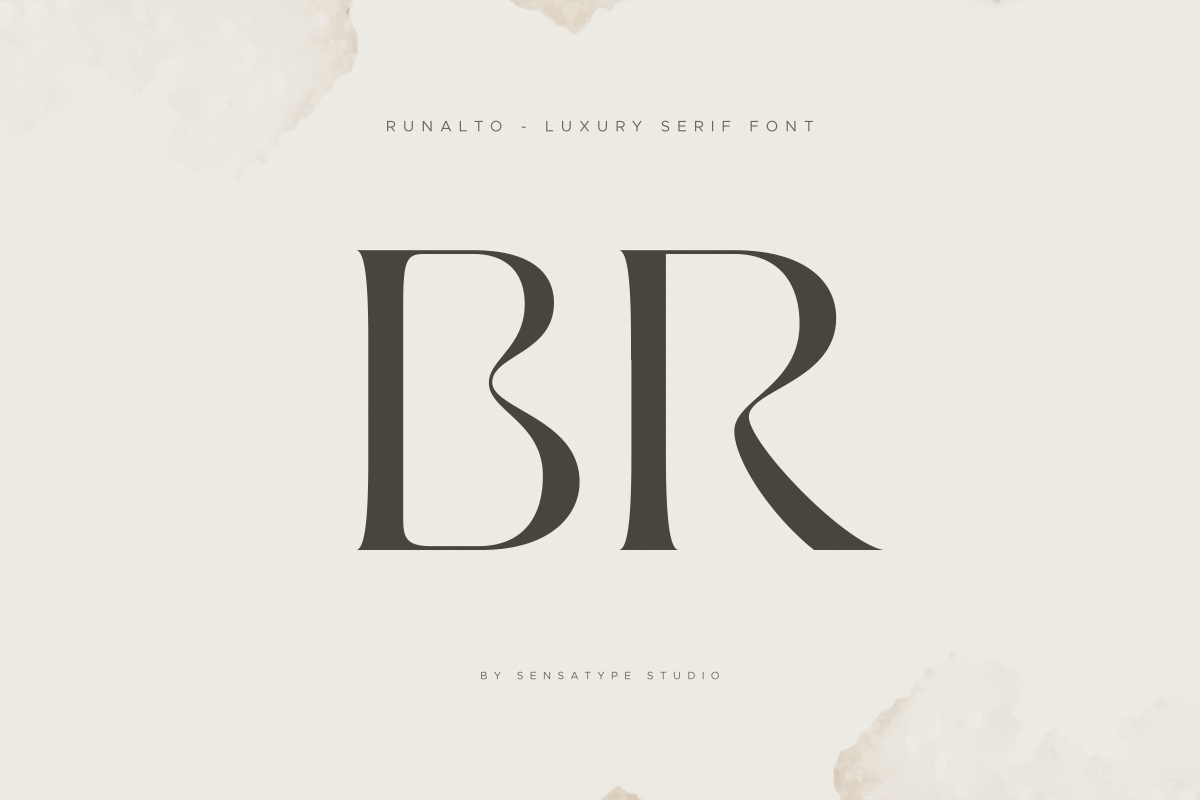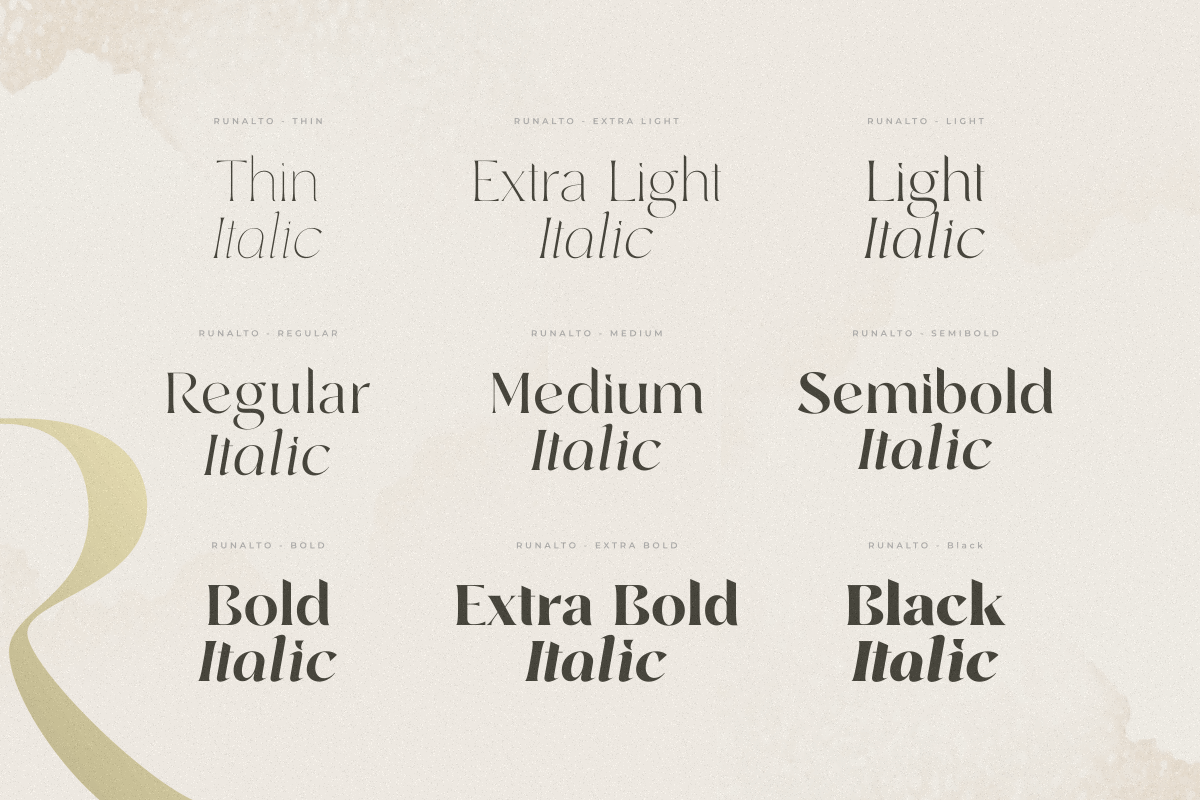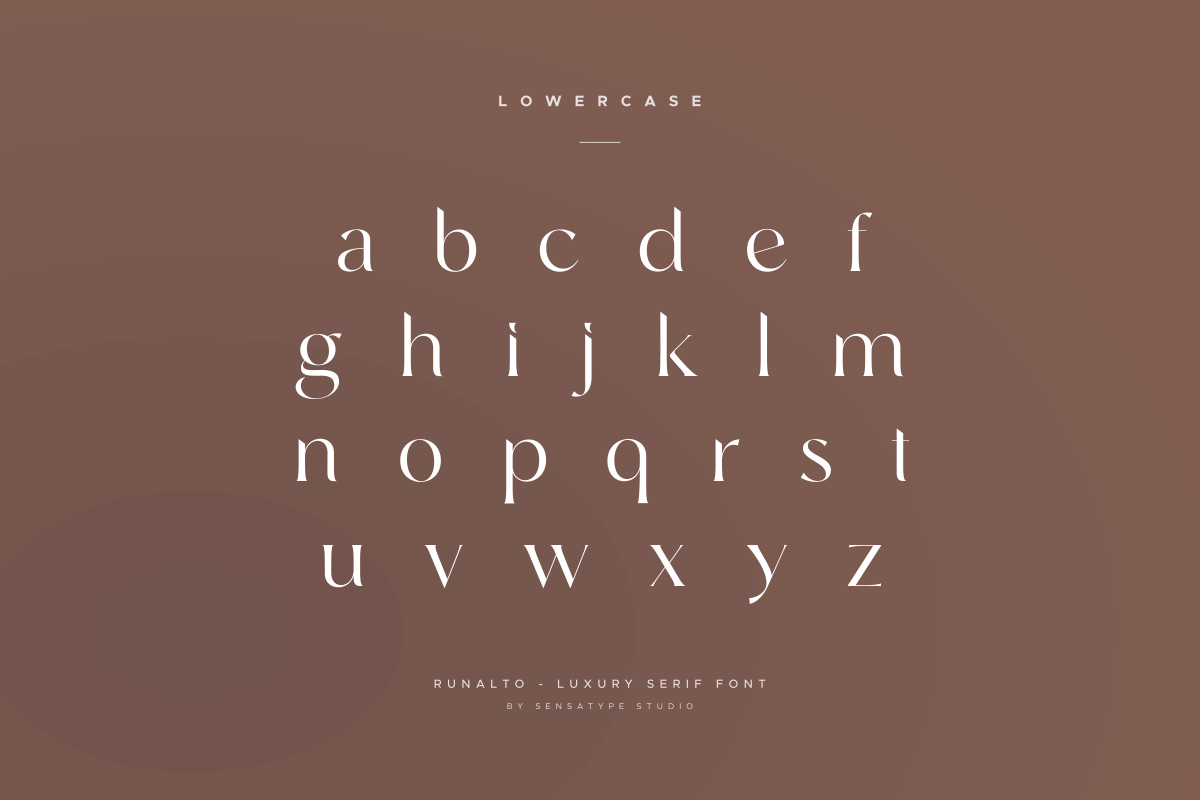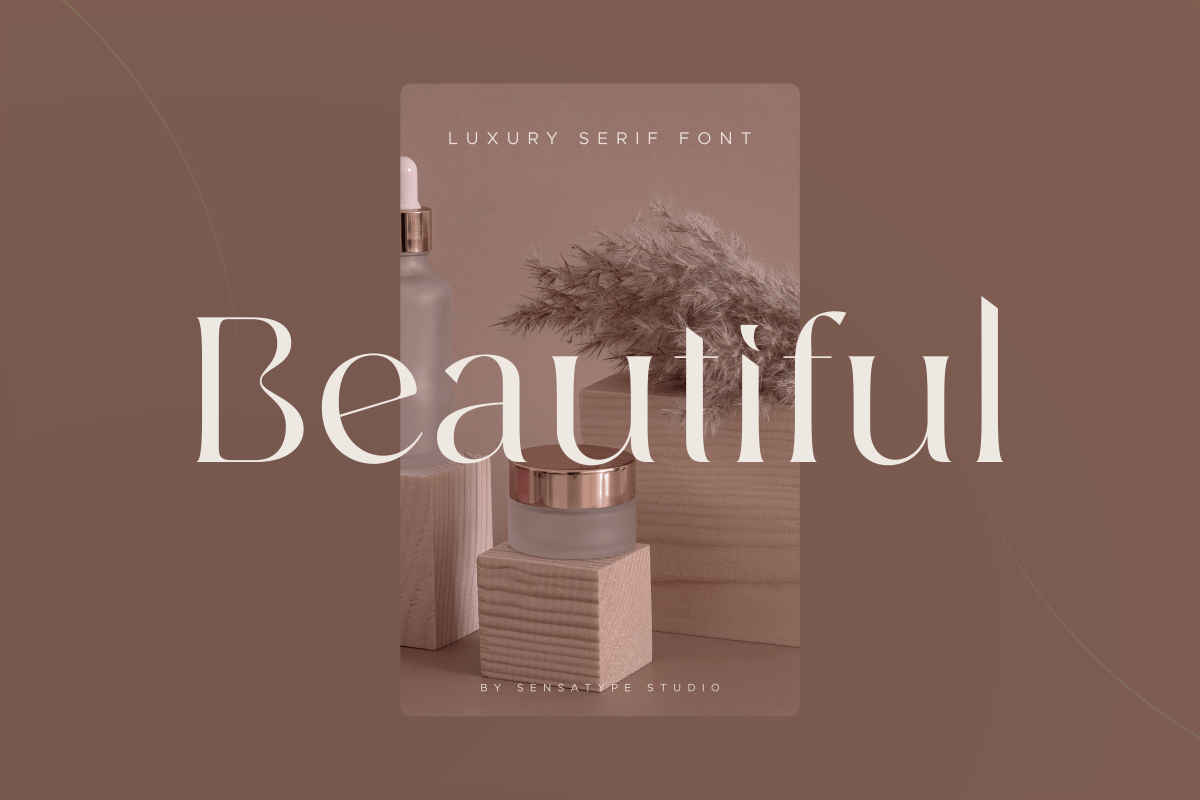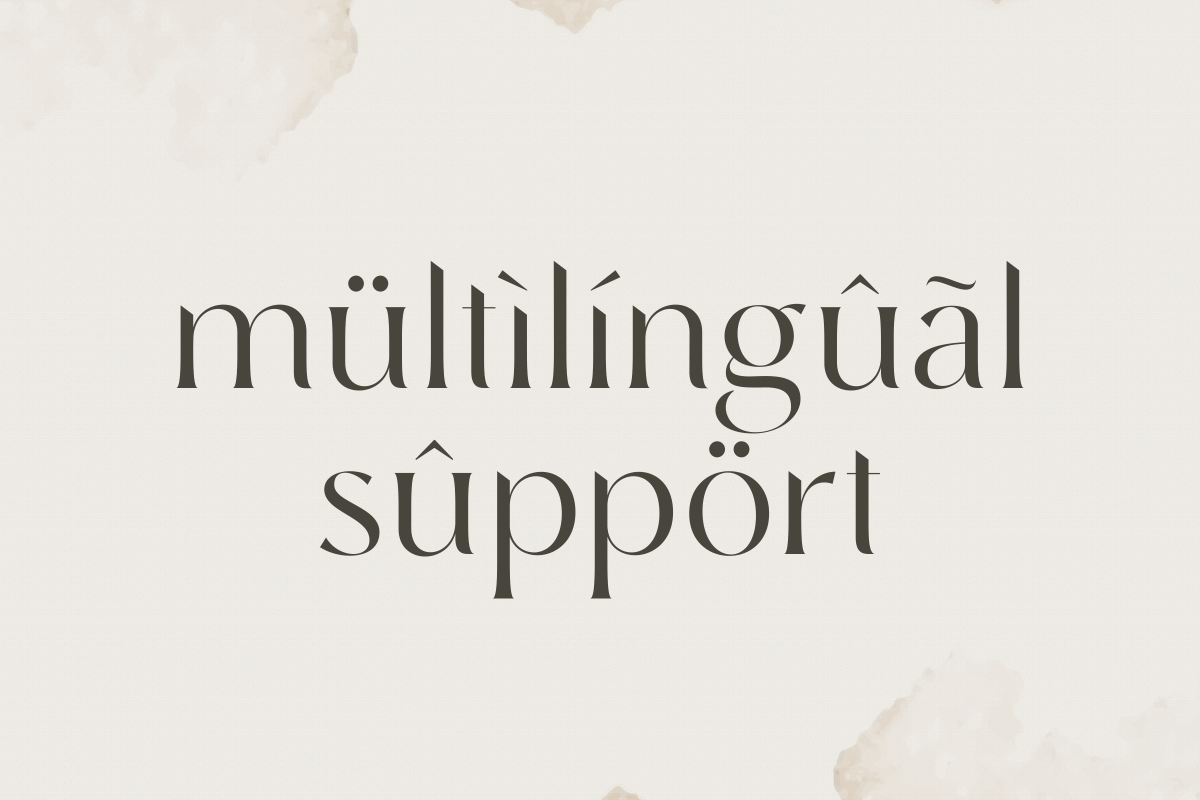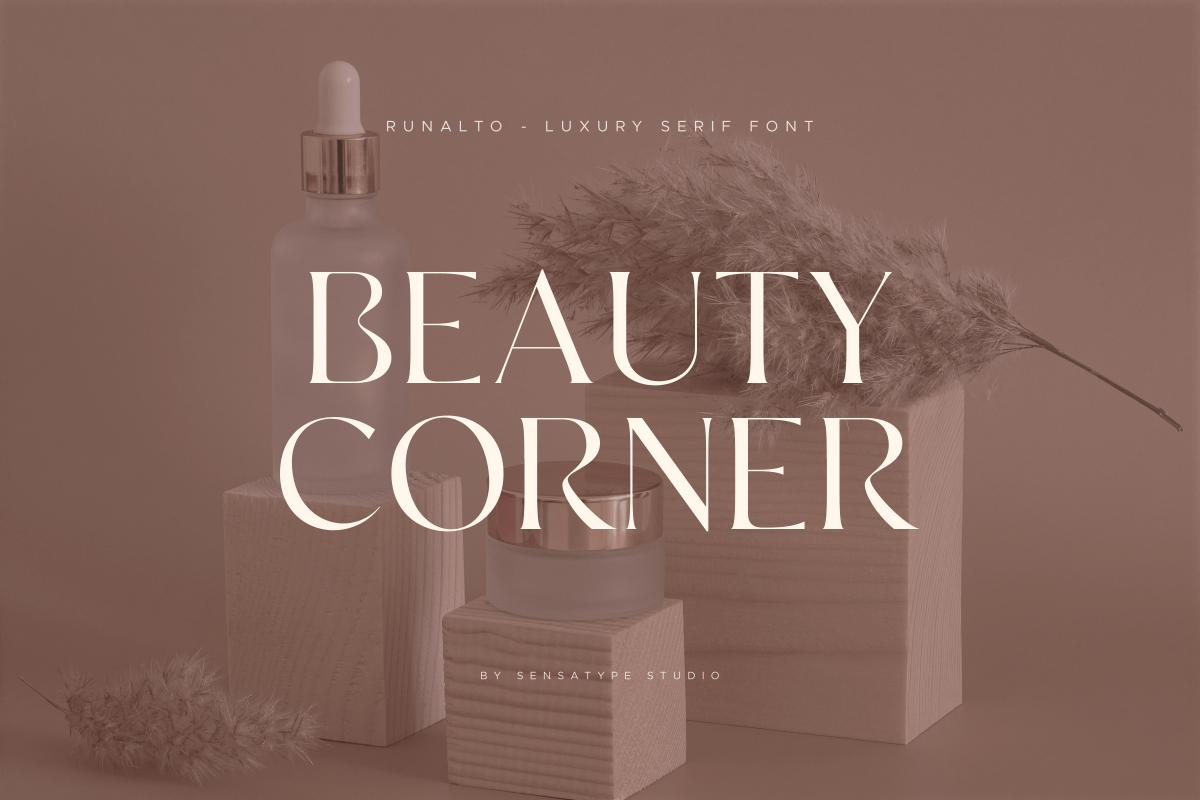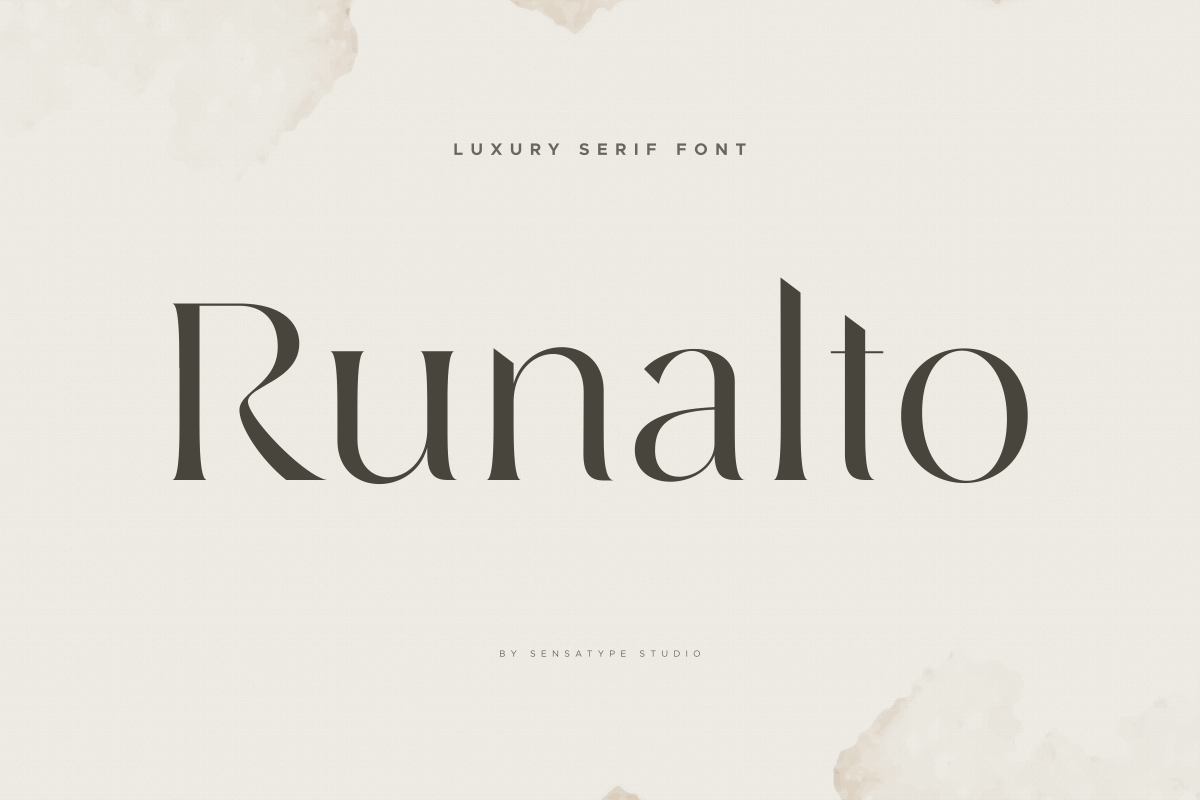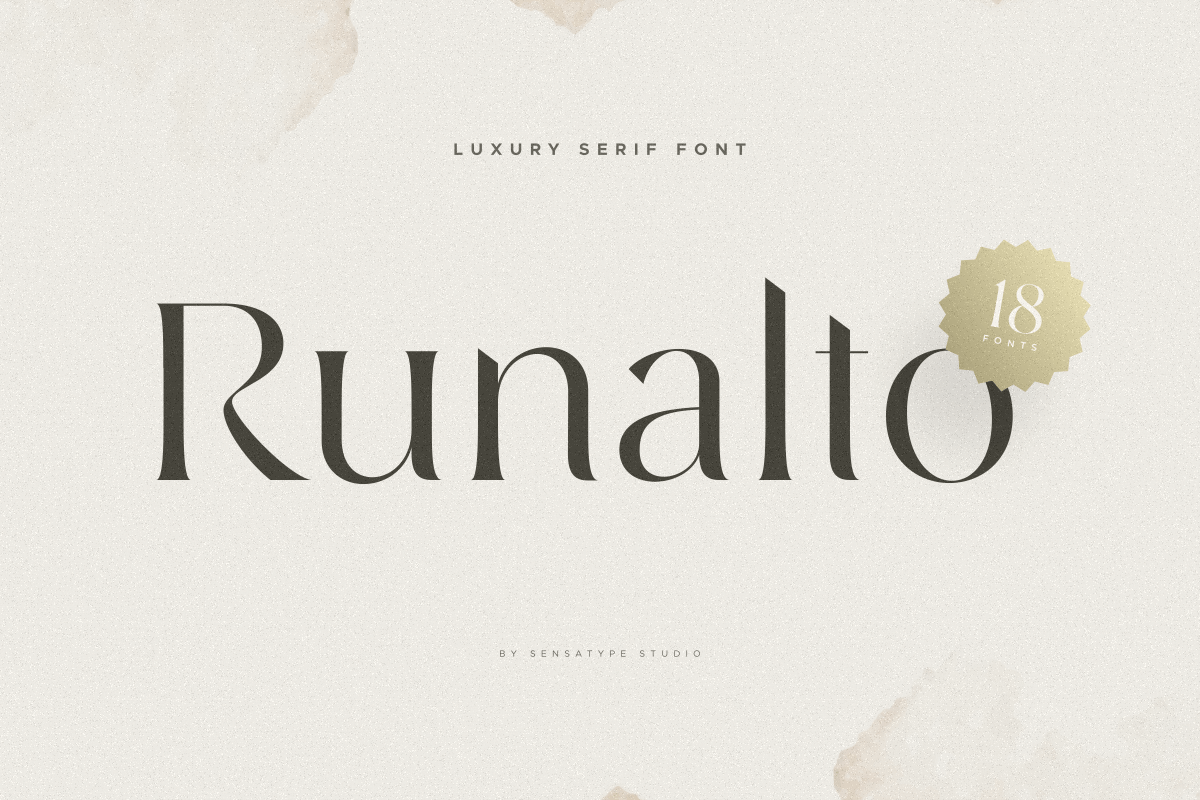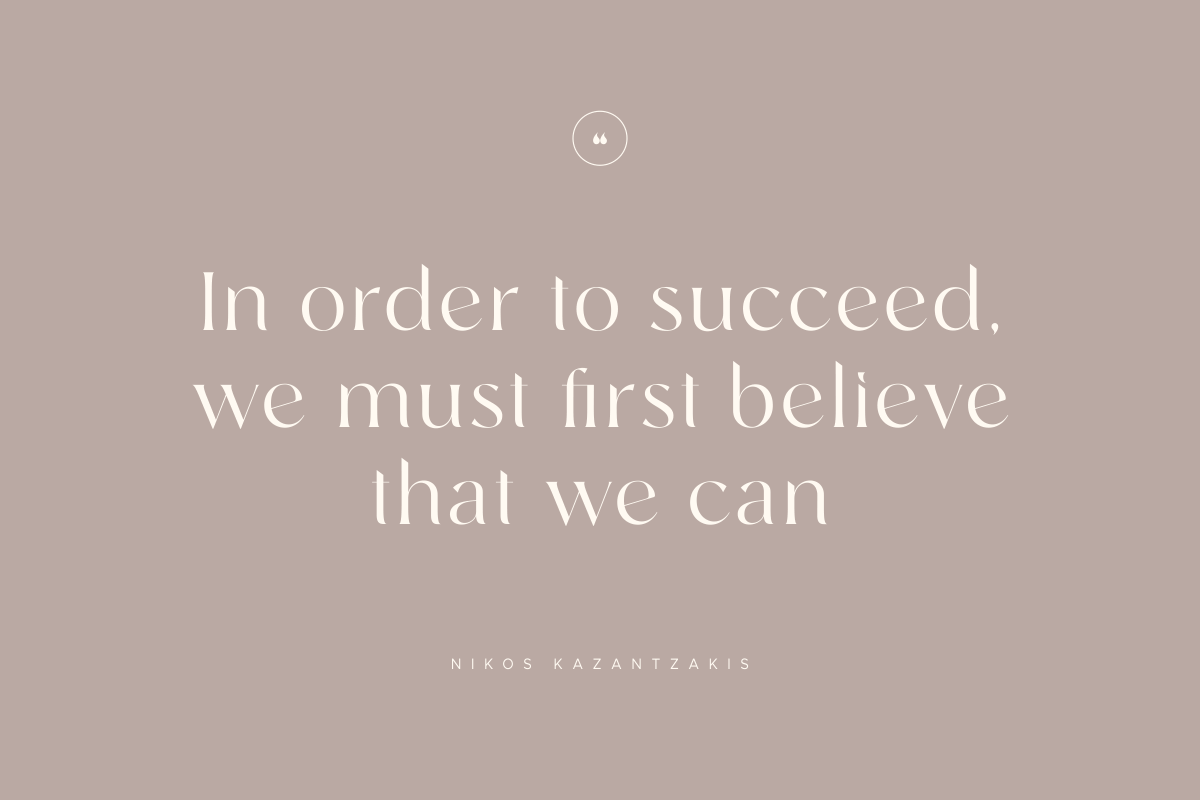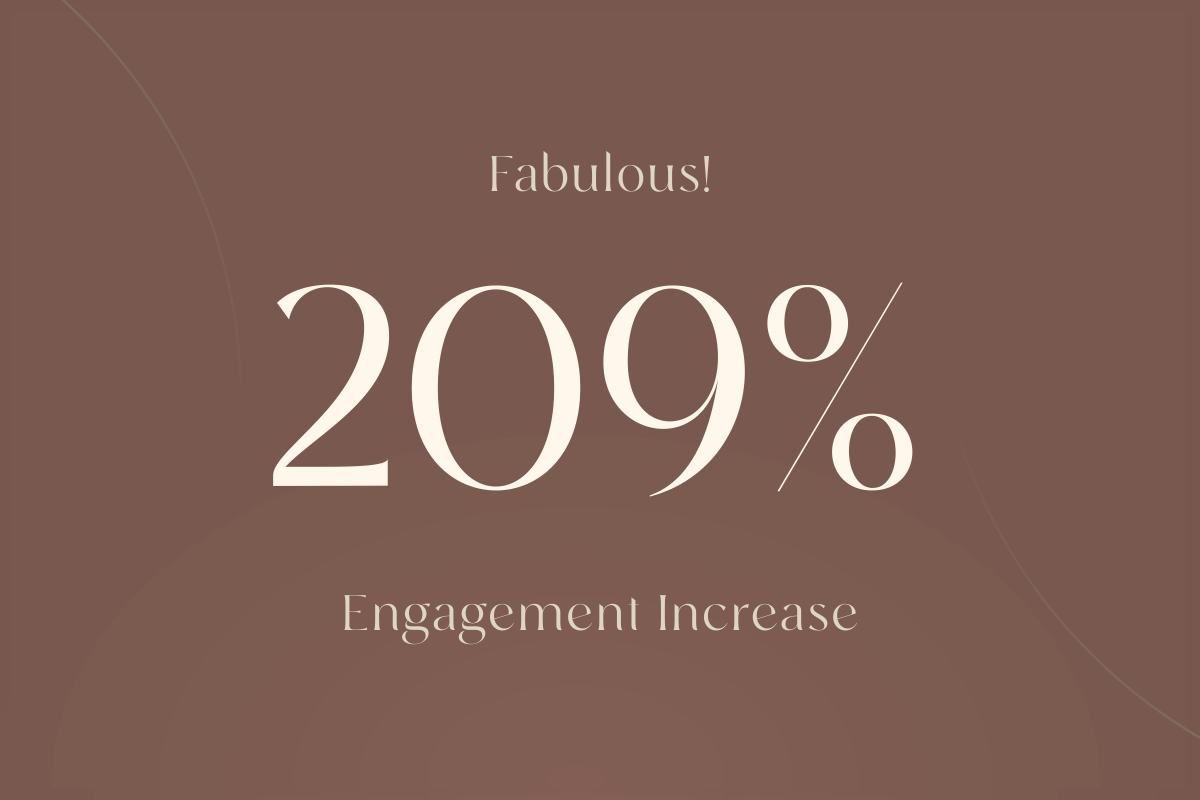
Runalto is a display serif font with luxury, elegant, modern, unique and classy-look. This font crafted specials for luxury-themed projects, ready to use on Magazine, Social Media, Branding, Logo, and Many more that needs Luxury touchs.
Runalto is also included full set of:
- uppercase and lowercase letters
- multilingual characters
- numerals
- punctuation